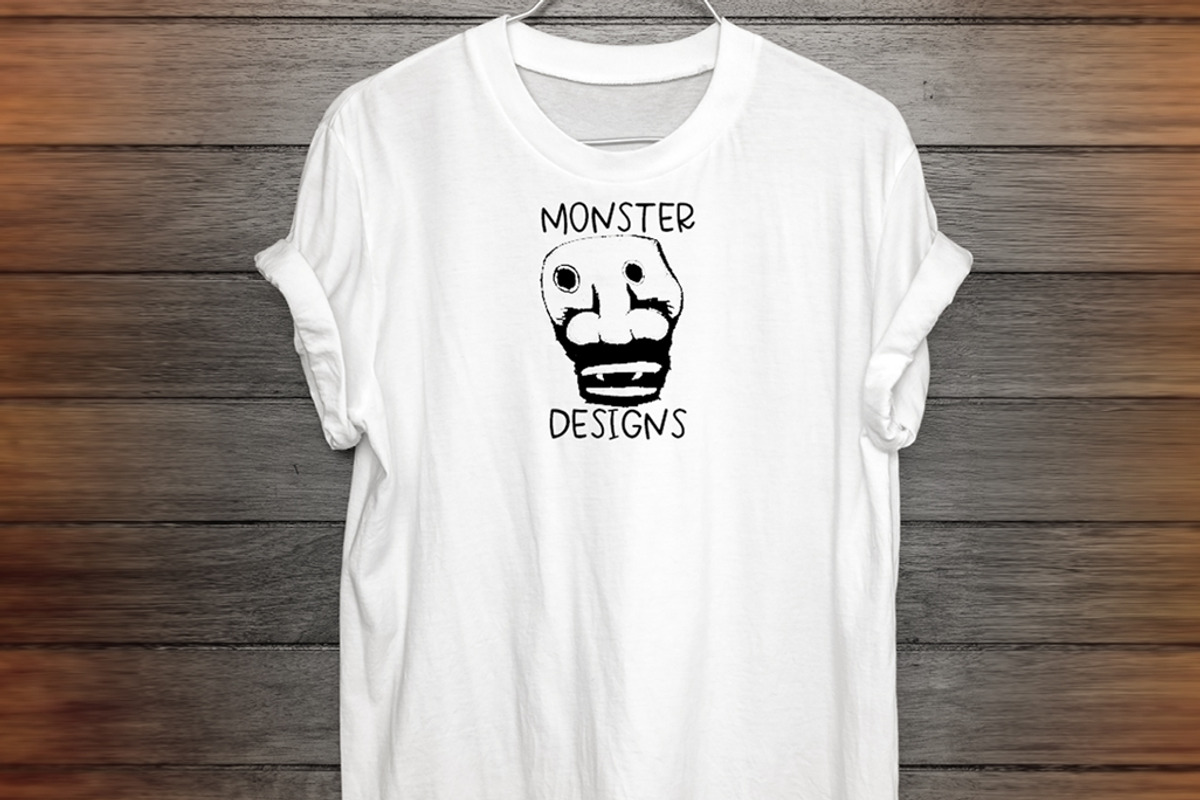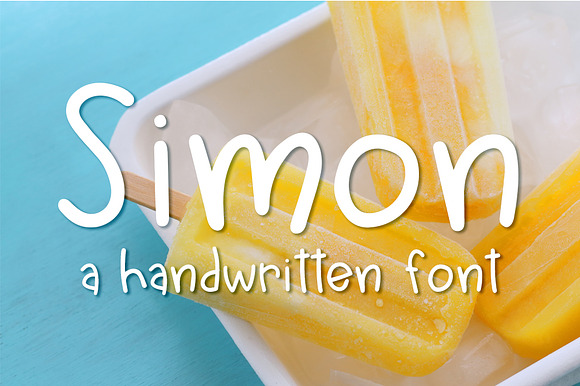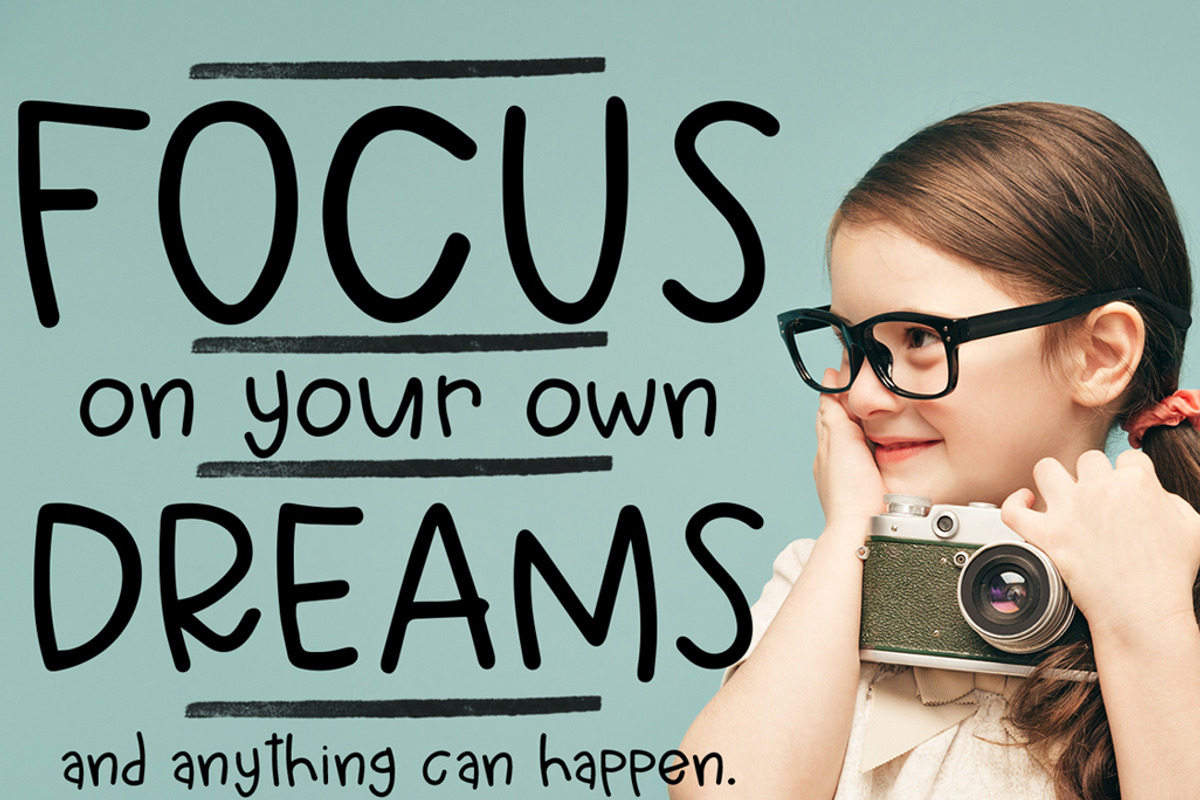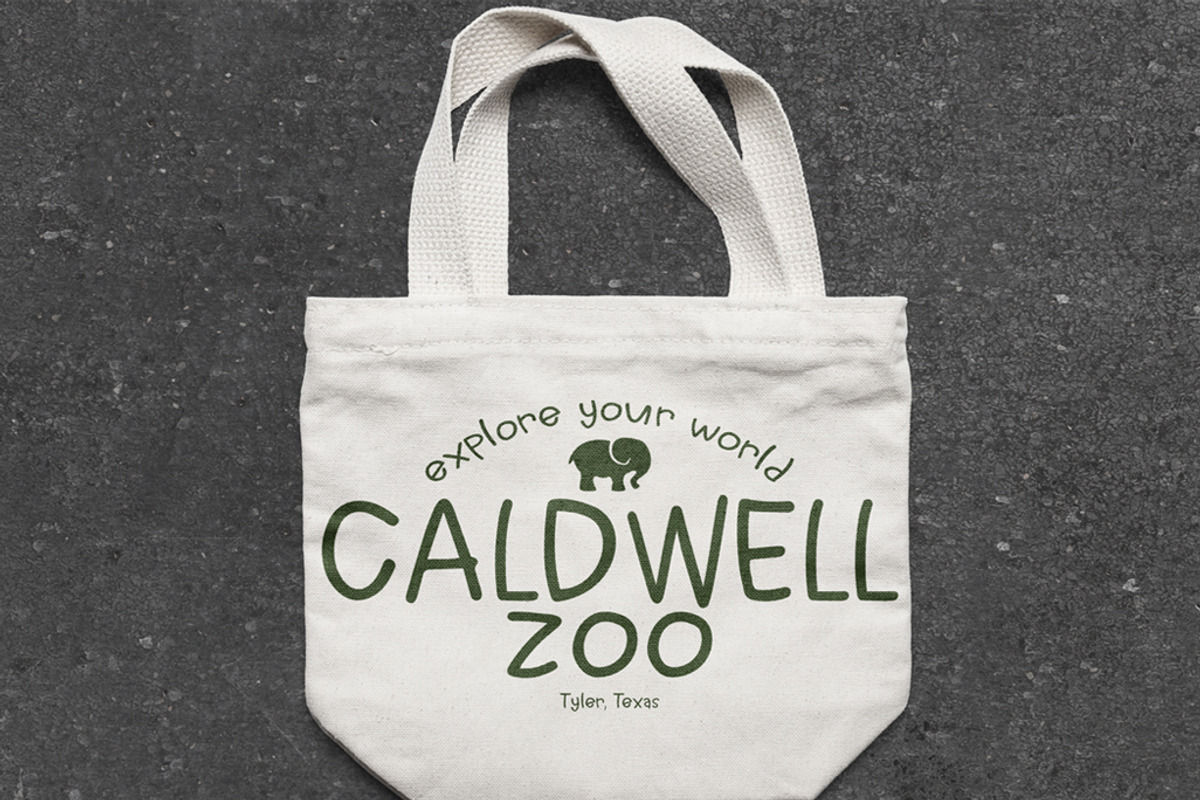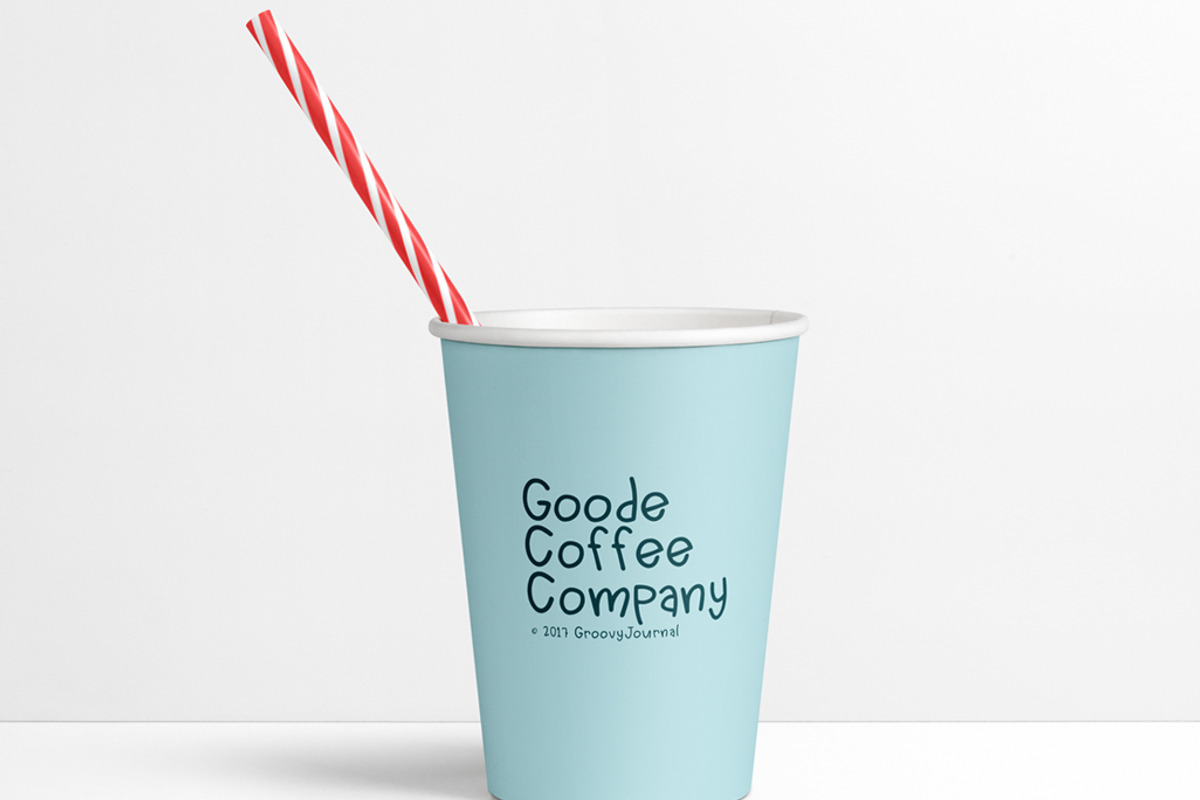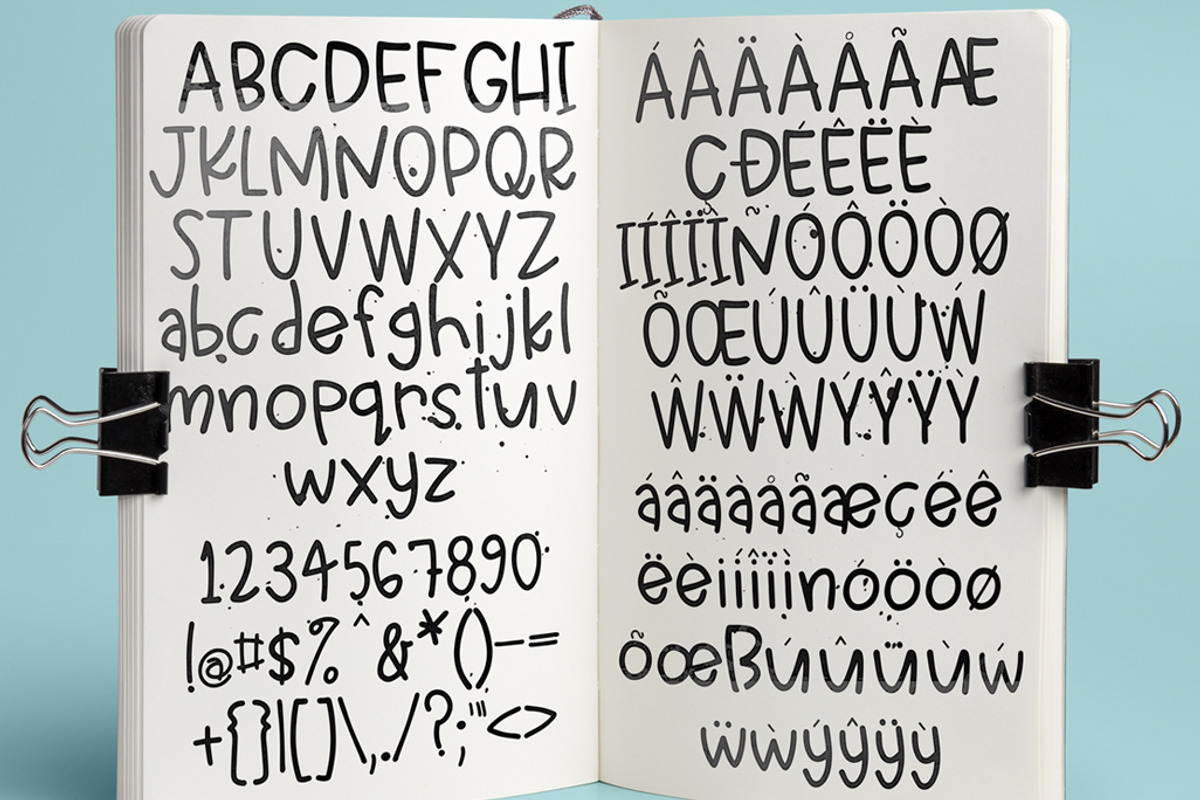
Simon Font
Inspired by my passion for hand-lettering, Simon is a simple, clean, and fun font that looks great on greeting cards, amazing on t-shirts, perfect on mugs and combines seamlessly on just about any hand lettered project that comes your way.
Simon Font by Groovy Fonts by Mindy fits naturally into Branding, posters, packaging, typography.